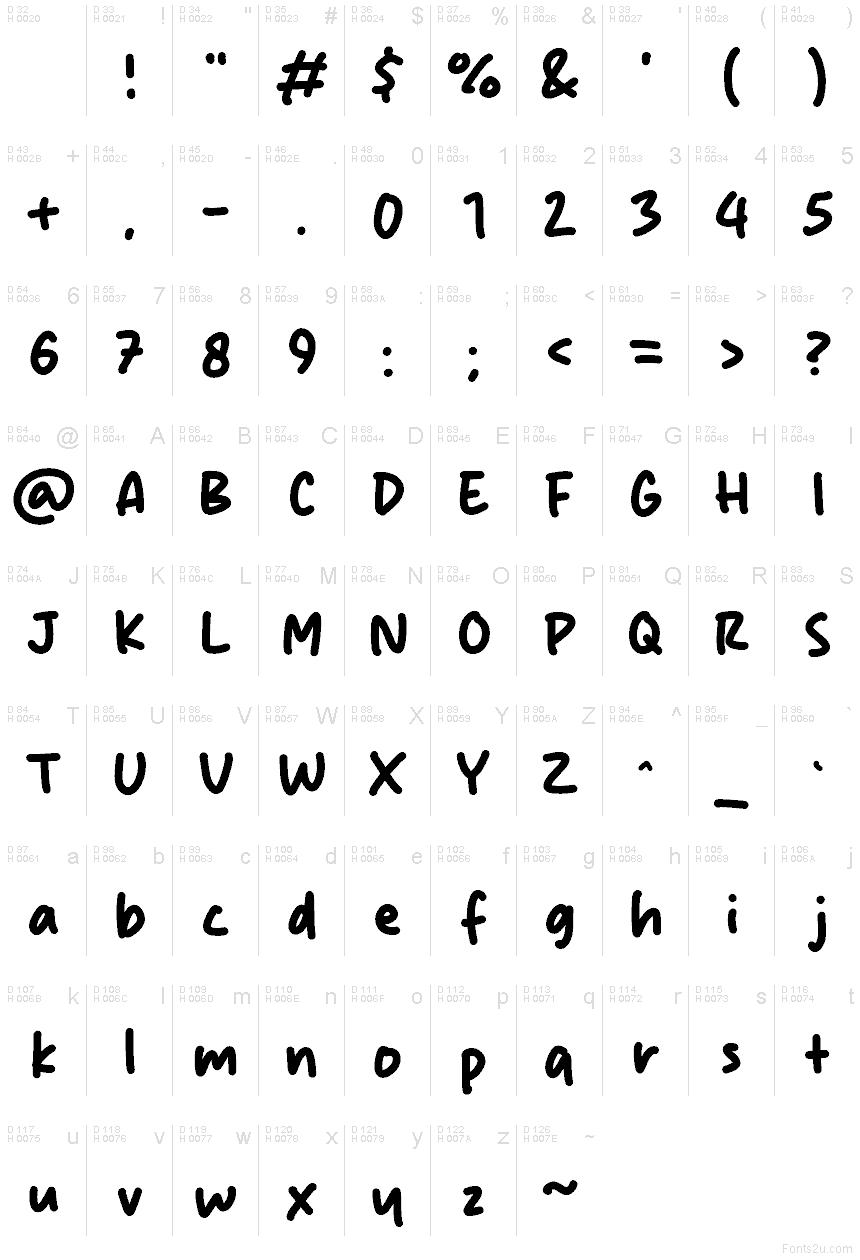
Clocky Stick
Clocky Stick font by Origin Type is a free handwritten font that embodies a casual, modern appeal with an expressive personality. Its organic, flowing design makes it ideal for communicating human warmth and approachability.
Use this versatile typeface in packaging, kitchenware branding, personalized cards, product ads, quotes posters, invitations to handmade events and exhibitions. The friendly appearance is perfect for educational tools and books designed for young readers.